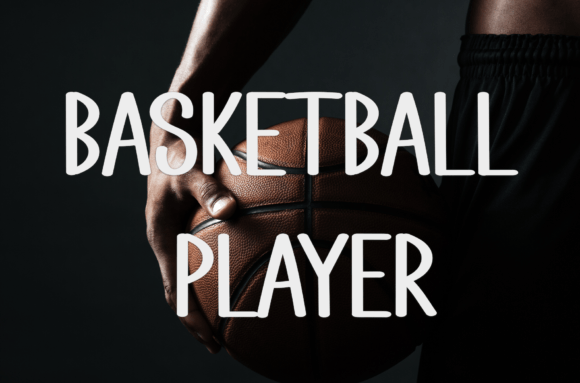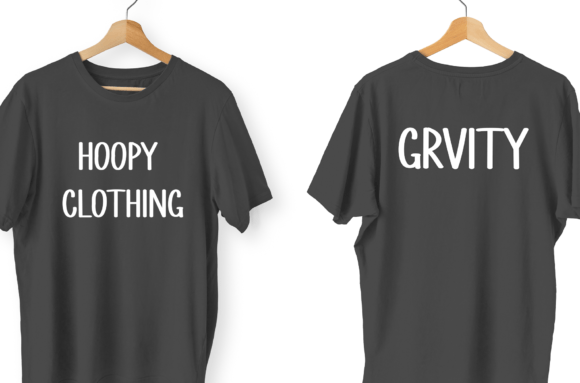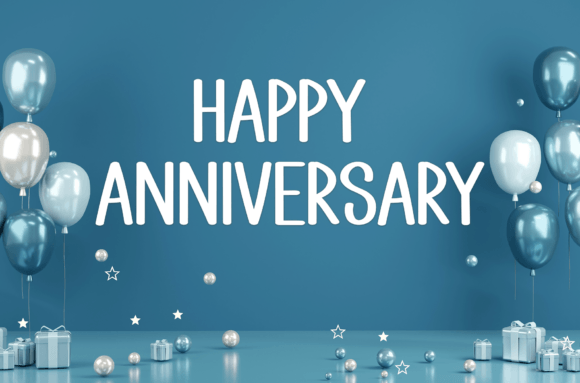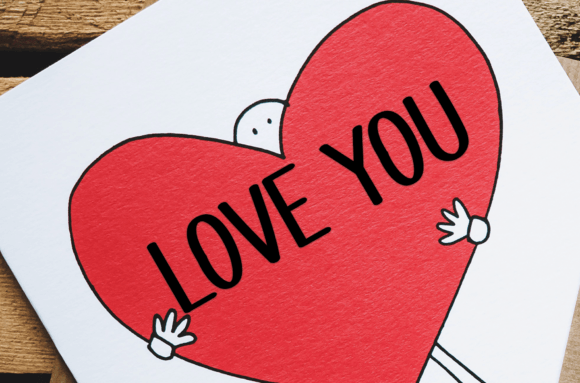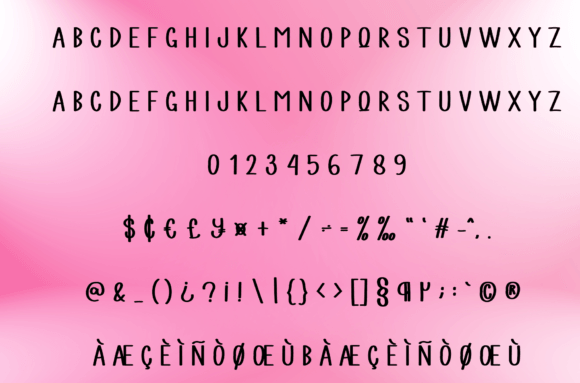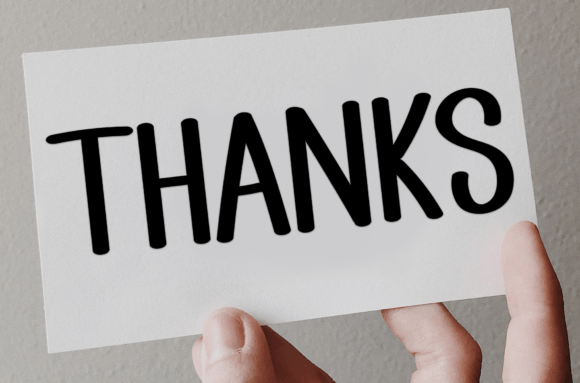
The Perfect Splash of Joy in Your Designs
You’ve spent hours brainstorming, sketching, and perfecting your design, and finally, you’ve got it just right – but something’s missing. That’s when the magic happens, and you stumble upon the perfect font to bring your creation to life. For many designers, this moment is like sipping a refreshing glass of juice on a sunny day – it’s a burst of happiness and energy that sets your project apart.
Enter Juice Font, a sweet and friendly handwritten font that’s designed to add a joyful touch to your designs. Whether you’re creating wedding invitations, cards, or any other project that needs a relaxed and fun vibe, Juice Font is the perfect companion. Its versatility and playful charm make it a valuable asset for designers looking to elevate their work and connect with their audience on a deeper level.
Juice Font Key Features
- Size and Resolution: The font comes in 4 different styles, with each style available in 6 font weights, ranging from 200 to 900, and 3 font styles (Regular, Italic, and Bold Italic), with a resolution of 1024×1024 pixels.
- Unique Characteristics: Juice Font is designed to evoke a sense of modernity and sophistication, with a unique blend of geometric and organic elements, making it perfect for branding and packaging designs.
Juice Font Review
I was excited to dive into the Juice Font and see what it had to offer. As a designer, I’m always on the lookout for fresh and unique typography options.
- The Juice Font has a fun and playful vibe that would be perfect for projects that need a bit of whimsy.
- The font’s versatility is impressive, as it can be used for a wide range of applications, from logos to digital interfaces.
- The font’s x-height is well-balanced, making it easy to read, even at smaller font sizes.
- The font may not be suitable for projects that require a more formal or serious tone.
- The font’s ligatures can be a bit hit-or-miss, sometimes looking a bit awkward.
- The font’s italic and bold styles could be more refined.
Overall, I think the Juice Font is a great addition to any designer’s toolkit. While it may not be perfect, its unique personality and versatility make it a great choice for the right project. With a bit of tweaking, I think this font could be truly exceptional.
The Juice Font is ideal for:
- Health and wellness marketing materials.
- Modern and trendy designs.
Alternatives to “Juice Font” for Designers
Lato is a clean and modern sans-serif font that is perfect for digital design, particularly for headings and titles. It is highly legible and works well in a variety of contexts, from websites to mobile apps. Compared to Juice Font, Lato is more geometric and has a more subtle feel, making it a great choice for designers who want a clean and sophisticated look.
Open Sans is a popular sans-serif font that is highly readable and versatile. It is a great choice for body text and works well in a variety of contexts, from websites to print materials. Compared to Juice Font, Open Sans is more modern and has a more friendly feel, making it a great choice for designers who want a clean and approachable look.
Montserrat is a geometric sans-serif font that is perfect for urban and modern designs. It is highly legible and works well in a variety of contexts, from websites to mobile apps. Compared to Juice Font, Montserrat is more dramatic and has a more edgy feel, making it a great choice for designers who want a bold and modern look.